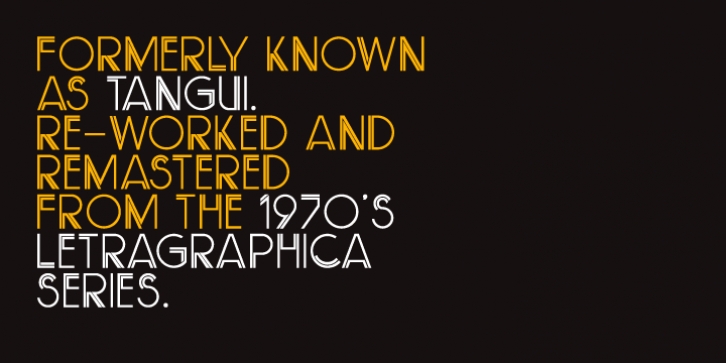
TenGu is a retro font published by The Northern Block.
An elegant digital typeface re-worked and remastered from the 1970’s Letragraphica font Tangui. The font has gone through a rigorous design process with over 80 hours in the production. Details include: full 250 characters, manual kerning and Euro symbol.